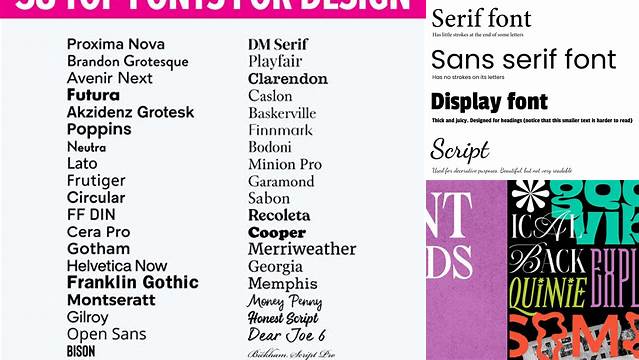
Top Website Fonts: Trends For 2025
Hey guys! Ever wondered what fonts will be all the rage for websites in 2025? Well, buckle up, because we're diving deep into the world of typography to uncover the hottest trends and timeless classics that will dominate the digital landscape. Choosing the right font can make or break your website's design, affecting everything from readability to overall user experience. So, let's get started and explore the popular fonts for websites that will be making waves in 2025!
1. The Rise of Variable Fonts
Variable fonts are becoming increasingly popular due to their flexibility and efficiency. Unlike traditional font files, variable fonts allow for a single file to contain multiple variations in weight, width, and other stylistic aspects. This means designers can fine-tune the font to perfectly match their design needs without loading multiple font files. For popular fonts for websites, this translates to faster loading times and a more streamlined design process. Imagine being able to adjust the boldness of a font ever so slightly to make it pop just right – that's the power of variable fonts! As we move closer to 2025, expect to see more websites adopting variable fonts to enhance their performance and visual appeal. Plus, the sheer customization options are a designer's dream, enabling unique and personalized typography that sets websites apart. Keep an eye out for variable fonts to become a staple in web design!
2. Serif Fonts Making a Comeback
Serif fonts, often associated with tradition and elegance, are making a significant comeback in web design. While sans-serif fonts have dominated the digital space for years, there's a growing appreciation for the classic appeal of serifs. These fonts, characterized by the small decorative strokes at the end of letters, add a touch of sophistication and readability to websites. Think of fonts like Times New Roman or Georgia, but with modern updates and variations. For popular fonts for websites, serif fonts can create a sense of trust and authority, making them ideal for blogs, news sites, and professional portfolios. They can also bring a unique contrast when paired with modern sans-serif fonts. So, don't be surprised to see more serifs gracing your screens in 2025, bringing a timeless elegance to the digital world. The key is to use them strategically to enhance readability and overall aesthetic appeal.
3. The Continued Popularity of Sans-Serif Fonts
Sans-serif fonts remain a cornerstone of web design due to their clean, modern, and highly readable nature. These fonts, lacking the decorative strokes of serif fonts, are perfect for creating a sleek and contemporary look. Fonts like Arial, Helvetica, and Open Sans have been go-to choices for designers for years, and their popularity isn't waning. For popular fonts for websites, sans-serif fonts offer excellent legibility on screens of all sizes, making them ideal for body text and user interfaces. Their simplicity also allows them to pair well with a wide variety of other fonts, offering versatility in design. As we head into 2025, expect sans-serif fonts to continue to dominate the web, especially in designs that prioritize clarity and user-friendliness. Their adaptability and clean aesthetic make them a timeless choice for any website.
4. Geometric Fonts for a Modern Look
Geometric fonts, characterized by their clean lines and precise shapes, are gaining traction as a way to create a modern and minimalist aesthetic. These fonts often feature perfect circles, squares, and triangles, giving them a structured and almost architectural feel. Think of fonts like Futura or Montserrat – they exude a sense of order and sophistication. For popular fonts for websites, geometric fonts can be used to convey a sense of innovation and precision, making them ideal for tech companies, startups, and design agencies. Their clean lines also ensure excellent readability, even at smaller sizes. In 2025, look for geometric fonts to be used in bold, eye-catching headlines and minimalist website designs, reflecting a trend towards simplicity and clarity.
5. Handwritten and Script Fonts for Personalization
Handwritten and script fonts add a personal and artistic touch to websites, creating a sense of warmth and authenticity. These fonts mimic the look of handwriting, offering a more human and approachable feel. However, they should be used sparingly and strategically, as they can sometimes be difficult to read. For popular fonts for websites, a well-chosen script font can add a unique flair to logos, headings, and call-to-action buttons. Just make sure the font is legible and doesn't detract from the overall user experience. As we move into 2025, expect to see more websites incorporating handwritten and script fonts to add a touch of personality and stand out from the crowd. The key is balance – use them to enhance, not overwhelm, your design.
6. Display Fonts for Headlines
Display fonts are designed to grab attention and make a statement, making them perfect for headlines and large text elements. These fonts often feature unique and eye-catching designs, ranging from bold and impactful to elegant and refined. For popular fonts for websites, display fonts are used to create a strong visual hierarchy and draw the user's eye to important information. They can also be used to reinforce a brand's personality and create a memorable impression. In 2025, expect to see a wide variety of display fonts being used, from quirky and unconventional to classic and sophisticated. Just remember to use them sparingly and pair them with a more readable body font to ensure a balanced design.
7. Monospace Fonts for Code and Technical Content
Monospace fonts, where each character occupies the same amount of horizontal space, are essential for displaying code and technical content. These fonts ensure that code lines up correctly, making it easier to read and debug. For popular fonts for websites, monospace fonts like Courier New, Consolas, and Monaco are commonly used on developer blogs, technical documentation sites, and code editors. While they may not be the most visually appealing fonts, their functionality is unmatched when it comes to displaying code. In 2025, expect monospace fonts to remain a staple in the tech world, ensuring that code remains readable and accessible.
8. The Importance of Font Pairing
Font pairing is the art of combining two or more fonts that complement each other to create a visually appealing and balanced design. A well-executed font pairing can enhance readability, create visual interest, and reinforce a brand's personality. For popular fonts for websites, it's crucial to choose fonts that work well together, considering factors like contrast, hierarchy, and overall aesthetic. A common approach is to pair a serif font with a sans-serif font, or to use different weights and styles of the same font family. In 2025, expect to see designers experimenting with more creative and unconventional font pairings, but always with the goal of enhancing the user experience.
9. Accessibility Considerations for Fonts
Accessibility is a critical aspect of web design, and font choice plays a significant role in ensuring that websites are usable by people with disabilities. When choosing popular fonts for websites, it's important to consider factors like legibility, contrast, and font size. Avoid using overly decorative or complex fonts that may be difficult to read, and ensure that there is sufficient contrast between the text and background colors. Additionally, provide users with the ability to adjust font sizes to meet their individual needs. In 2025, expect to see a greater emphasis on accessibility in web design, with designers prioritizing font choices that are inclusive and user-friendly.
Choosing the right fonts for your website in 2025 will be crucial for creating a positive user experience and reinforcing your brand identity. Keep these trends and best practices in mind as you design your next website!